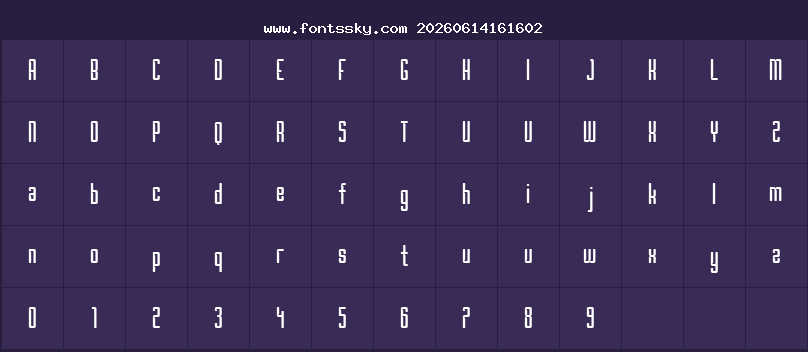
Borg Preview
• Font Name: Borg
• Full Font Name: Borg
• PostScript Name: Borg
• Designer: titusprod
• Manufacturer: titusprod
About Borg.ttf
Borg.ttf is a modern, elegant sans-serif font designed for ultimate readability and visual harmony. Perfect for branding, headlines, web design, and print materials.